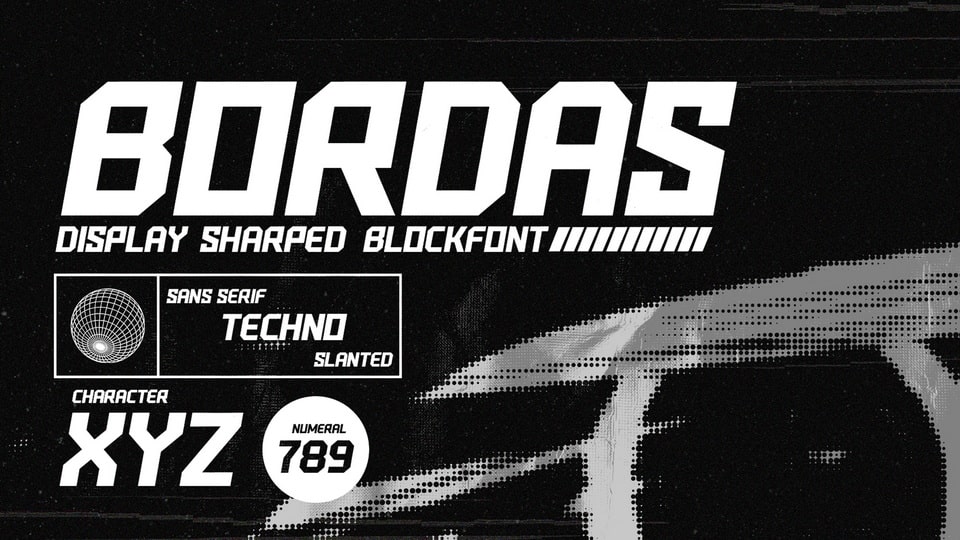
Feb 3, 2025DisplayBordas Font Bordas is a sharped block font that offers all the styles you need for modern techno theme. Best for posters, headlines and any display use. Font DetailsDesigned by: Drizy FontWebsiteLicense: Free for personal use Download Bordas FontFile size: 66.04 KBCreated: February 16, 2025Updated: February 16, 2025 Download Explore similar fonts Blade Runner Movie Font Endure Font Grid Font Urbanis Font Urban Block Font Torq Font # Block# Bold# Geometric# Sharp# Strong# Technology More fonts by Drizy FontCottenham FontRhomdon FontObera FontTilges FontDothed FontLatteroll FontGrovey FontLoftus Font